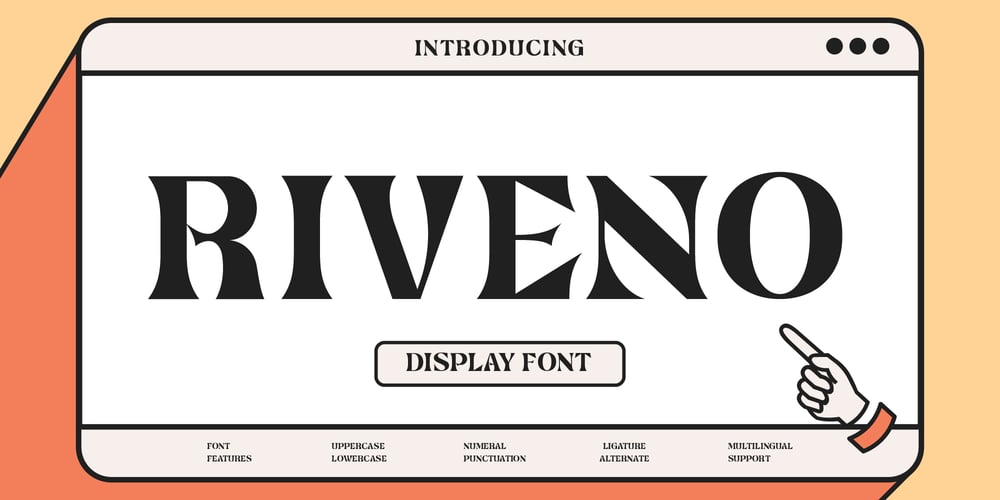
Riveno Font Family was designed by Guntur Septyan and published by GuseType. Riveno contains 1 styles and family package options. Riveno is a display font with sharp edge. This font can be used in a various of designs such as headlines, cover, poster, logo and more.Feature:- Kerning- Alternative Style and Ligature- Uppercase and Lowercase Letters- Numeral- Punctuation and Symbols- Multilingual Supports